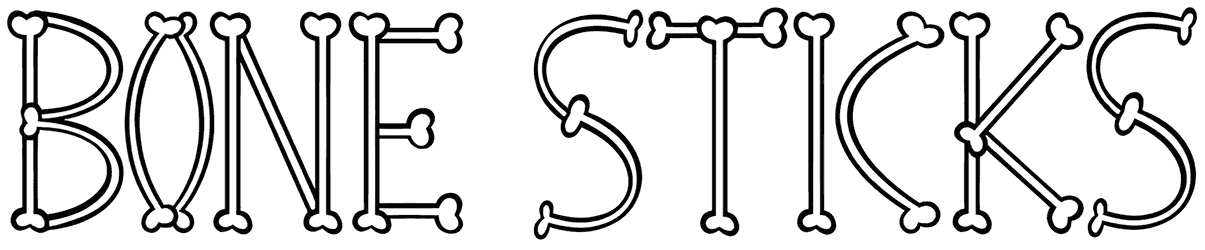
Bone Sticks Font
Is it important for you to have a distinctive edge for your upcoming work? The Bone Sticks font is the only one you need! Infuse your work with an air of intrigue by using this decorative and fancy font.
Even though it has no lowercase letters or numbers, for whatever purpose you may have, like Halloween logos, web graphics, and promotional materials, it works really well. Download this bone font from RB right away to give your projects a decisive advantage.